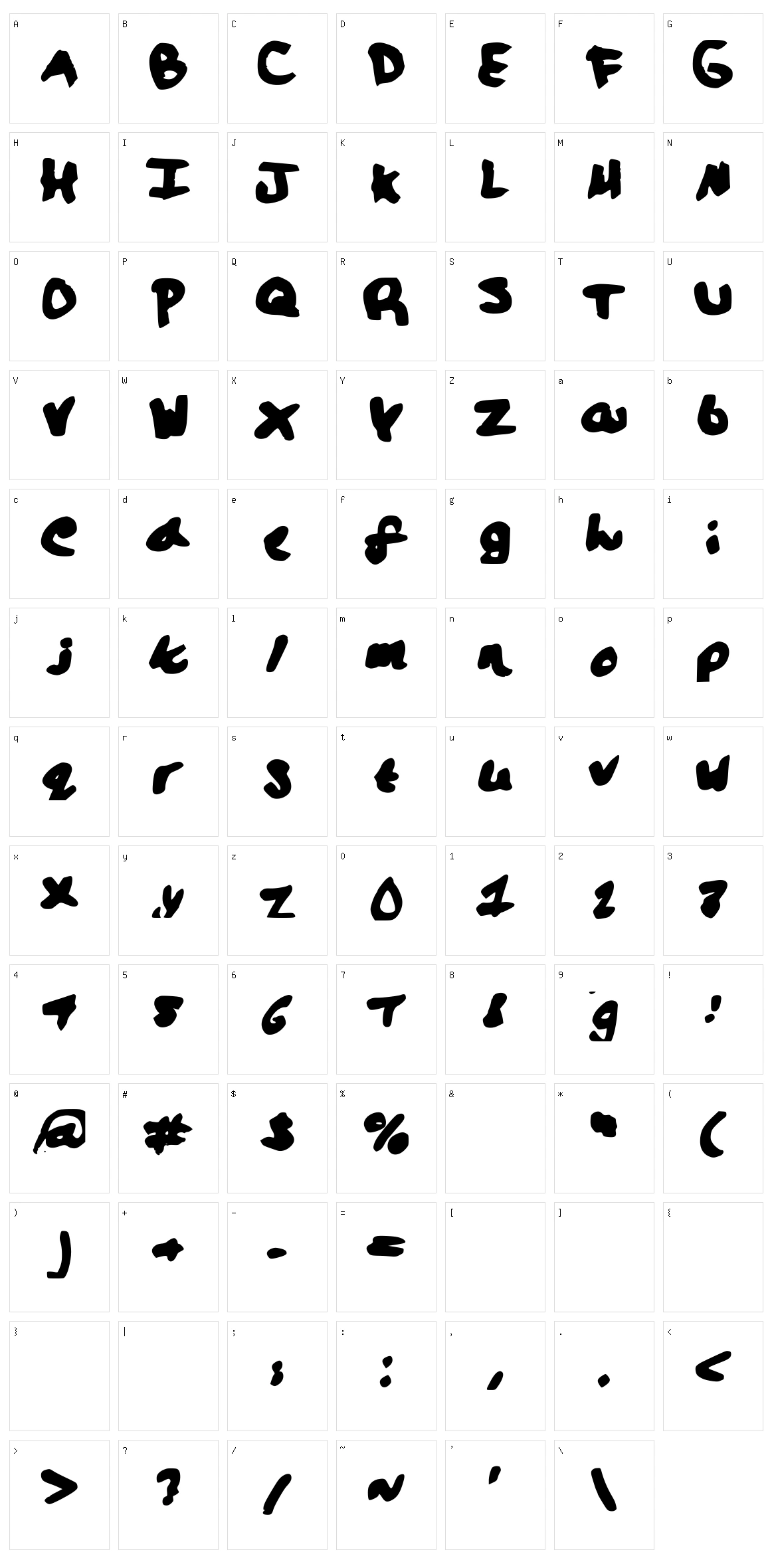
The free font Lalaland is carefully designed by Crystal Cowhig, showcasing a thoughtful balance of creativity and usability and falls under the Script font style. When you download the ZIP file, it contains only 12.82 KB of font files, making it lightweight and quick to download. Please review the license details below to understand permitted usage and distribution rights. If license information is not available, we recommend using this font for personal projects only or contacting the author directly for commercial usage permissions.